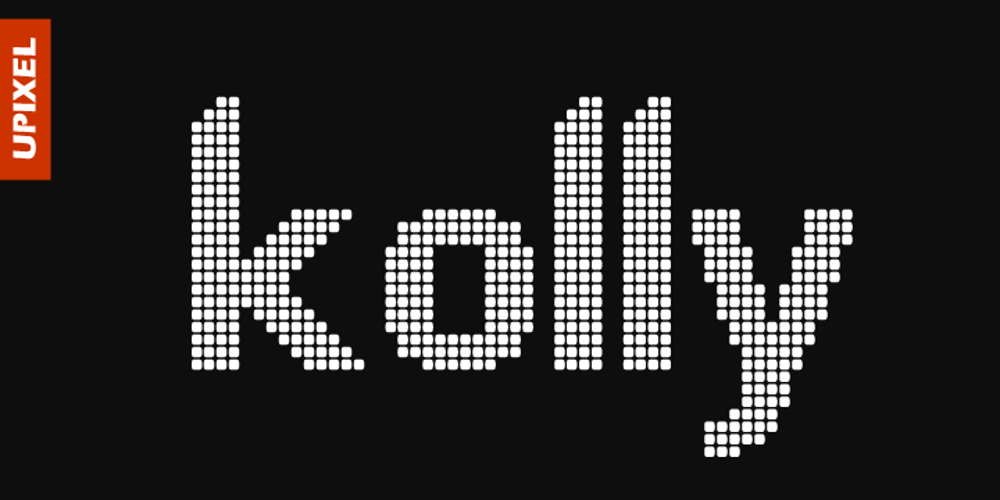
Kolly
Kolly font
Kolly Font Family was designed by Michel Troy and published by UrbanPixel. Kolly contains 10 styles and family package options. The best of both worlds: good for small screen resolutions and nice output at larger sizes.